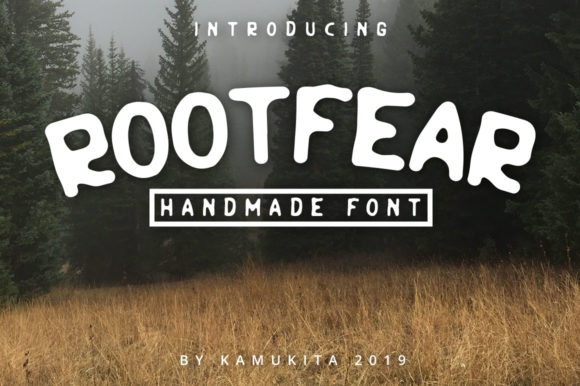
Dive into the world of vintage charm with Rootfear Font, the ultimate display font that captures the essence of nostalgia and timeless elegance. Step back in time and let your designs exude an aura of yesteryear with this captivating typeface, meticulously crafted to transport you to an era of classic beauty.
Unleash your creativity and let Rootfear Font weave its magic across a myriad of projects. From captivating logos that evoke a sense of heritage to branding that radiates authenticity, this font is your gateway to creating designs that resonate with a timeless appeal. Let your headlines dance with character and personality, drawing your audience into a world of nostalgia and charm.
With Rootfear Font, the possibilities are endless. Its versatility extends beyond logos and branding, making it an ideal choice for posters, flyers, and social media graphics. Its distinct vintage style adds a touch of sophistication to any project, whether you're designing for a retro-themed event or simply seeking to add a touch of classic elegance to your work.
Embrace the allure of the past and let Rootfear Font guide you on a journey through time. Its carefully crafted characters, reminiscent of an era gone by, will infuse your designs with a sense of nostalgia and warmth. Stand out from the crowd and create designs that speak to the soul, leaving a lasting impression on your audience.